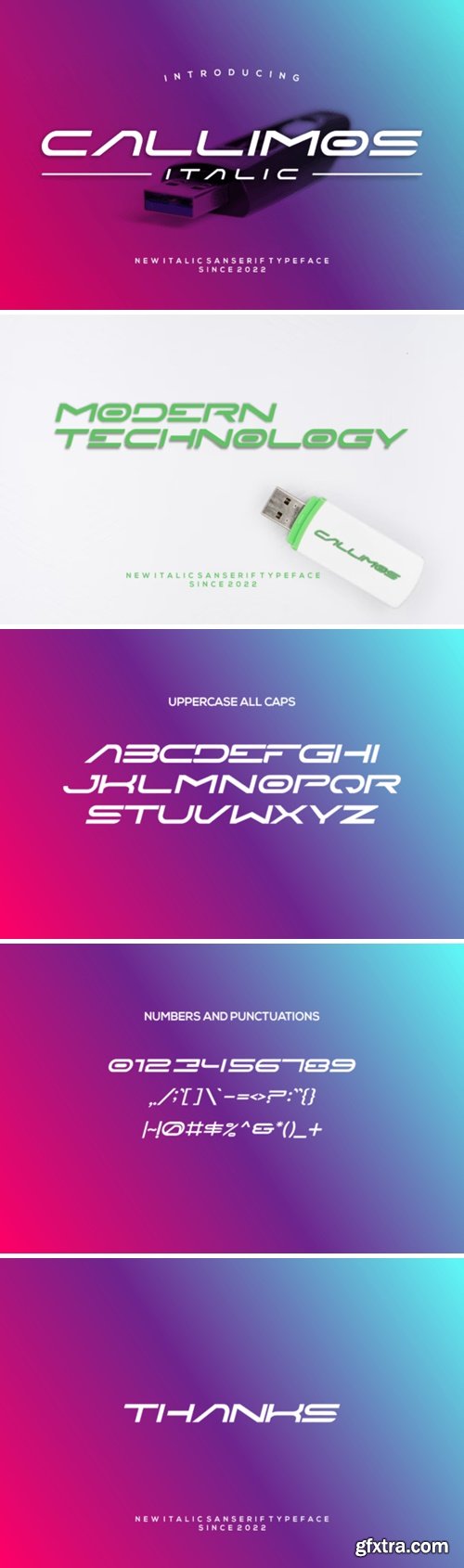
Callimos Italic Font
Callimos Italic is a futuristic sci-fi font designed for modern, technological, and standout typography needs. Its unique style enhances designs with a futuristic flair, making it ideal for cryptocurrency, technology, film, and sci-fi themes. Perfect for adding a modern touch and making headlines stand out, this font is crafted to give your projects a cutting-edge feel and effectively convey your main idea.